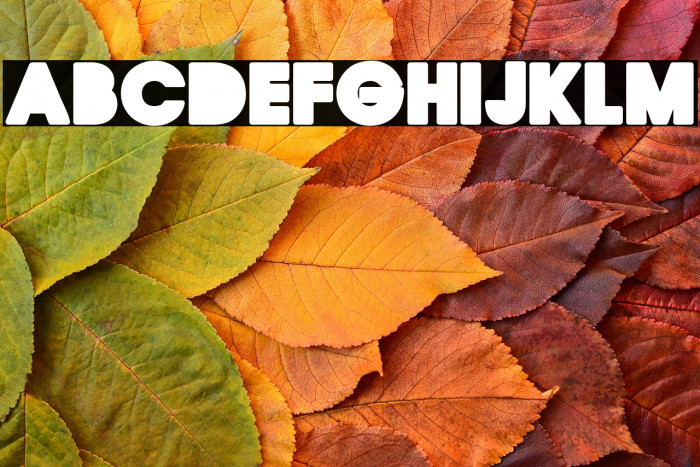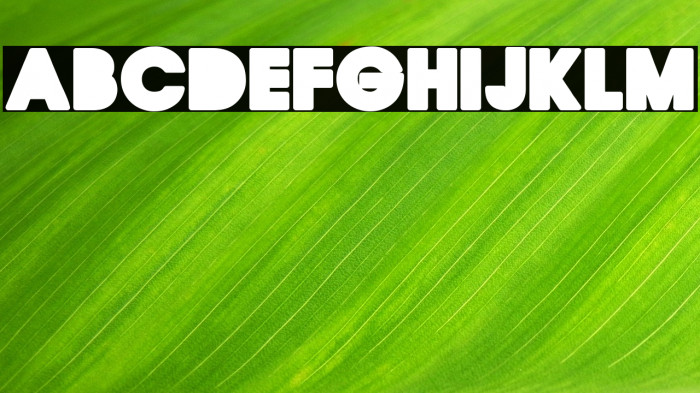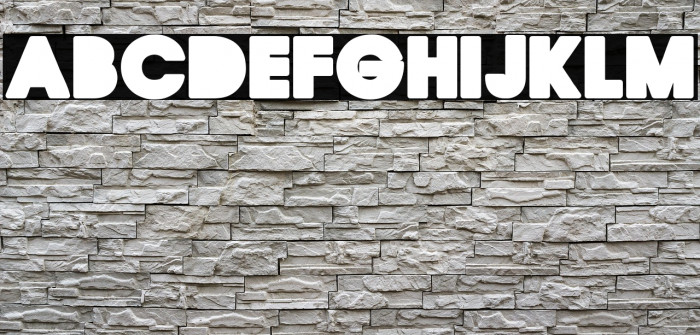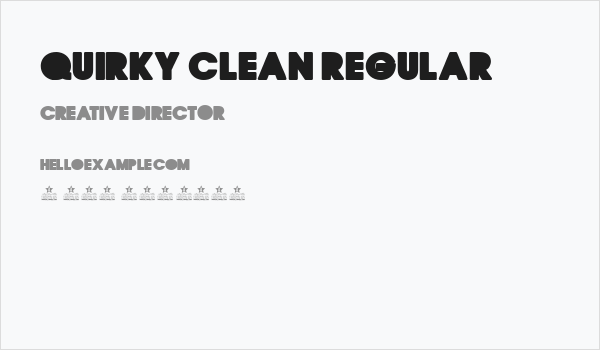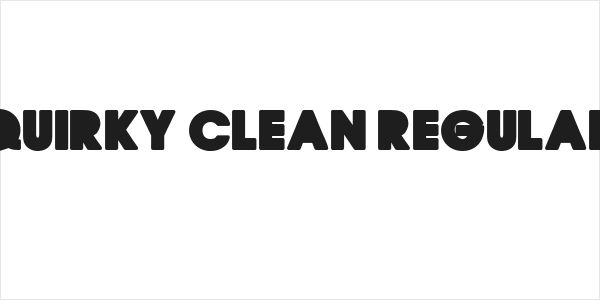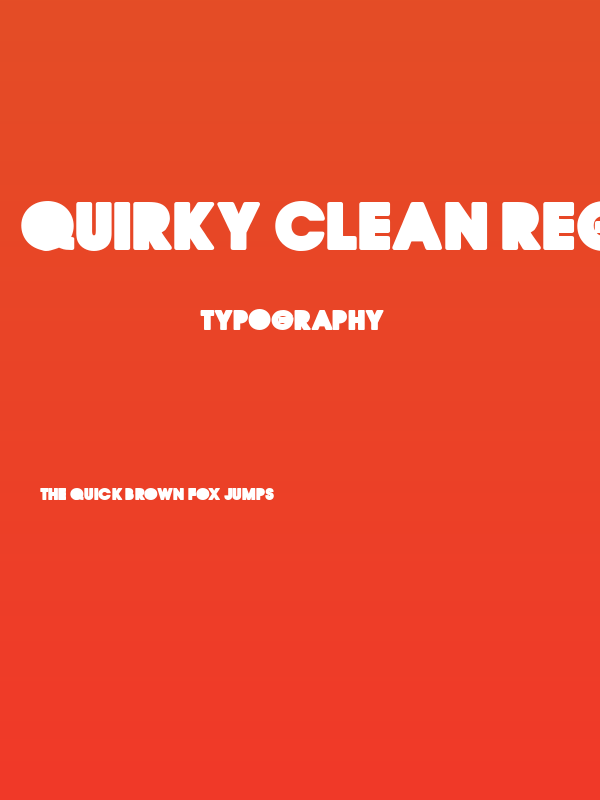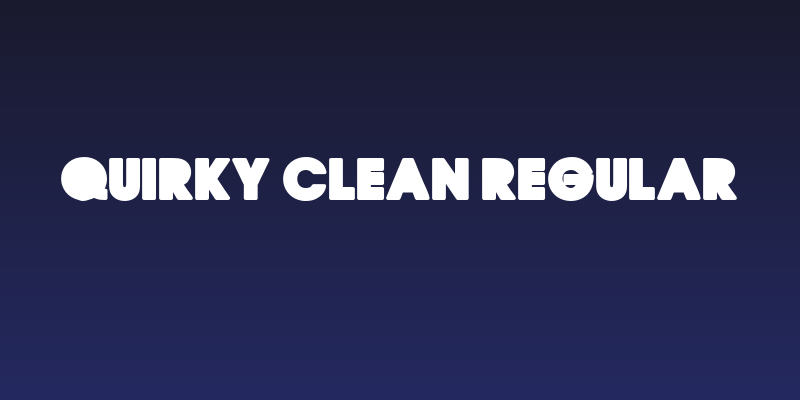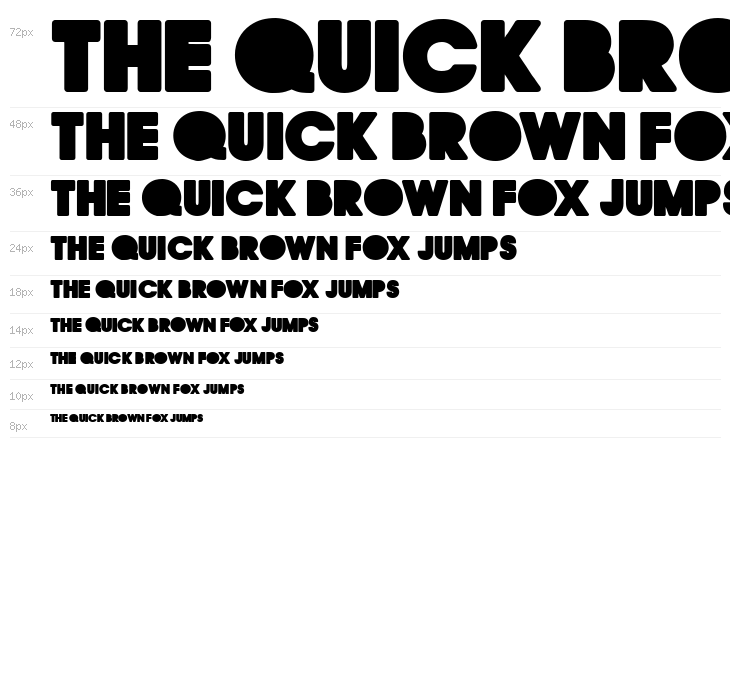
QUIRKY CLEAN Regular Font
QUIRKY CLEAN Regular Description
This font features bold, geometric letterforms with a playful and quirky aesthetic. The characters are constructed with thick strokes, creating a strong visual impact. The design incorporates unique shapes, such as circular elements within certain letters, adding to its distinctiveness. The uppercase and lowercase letters maintain a consistent style, emphasizing boldness and creativity. The font's overall appearance is modern and eye-catching, making it suitable for various creative applications.
| Proposed Projects | Ideal for branding, posters, headlines, and any project requiring a strong, creative visual impact. |